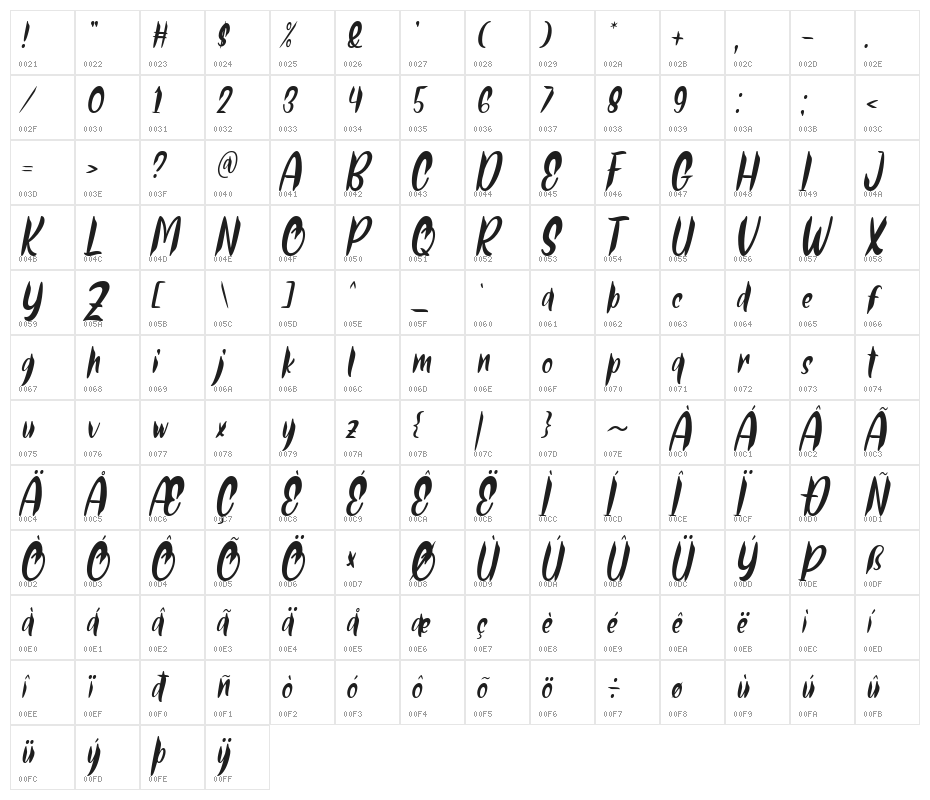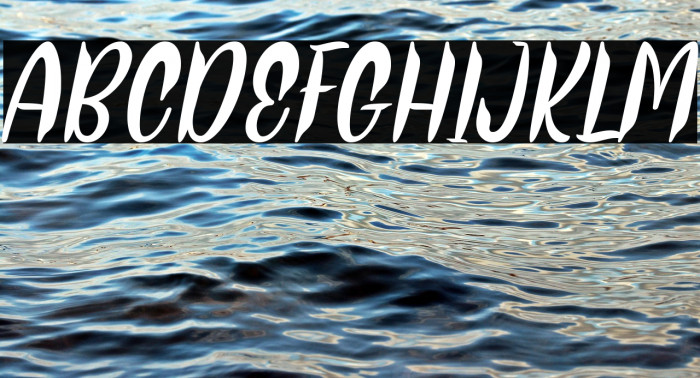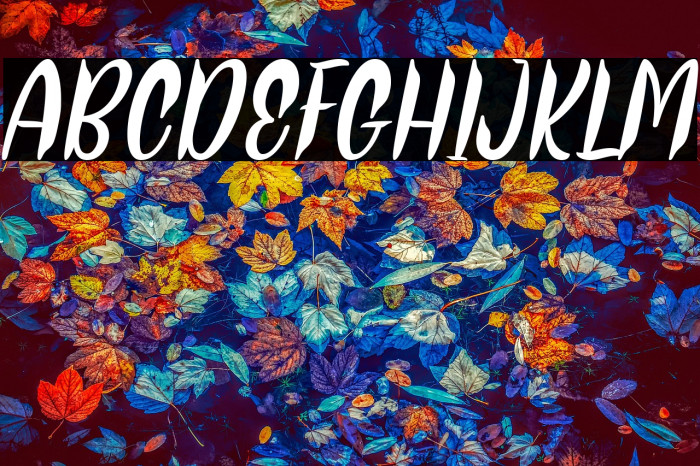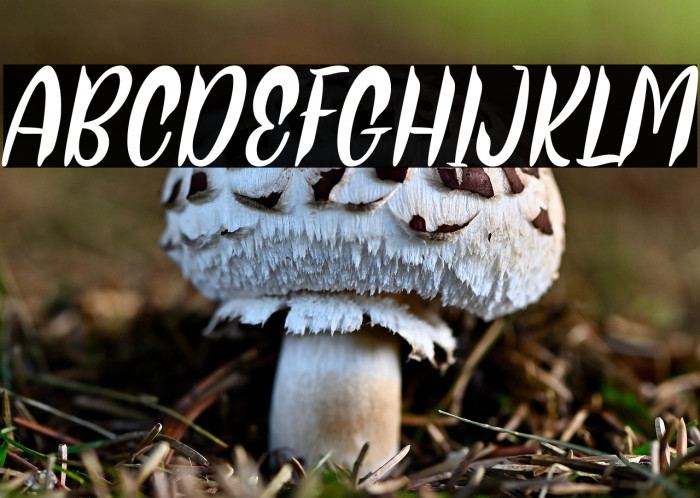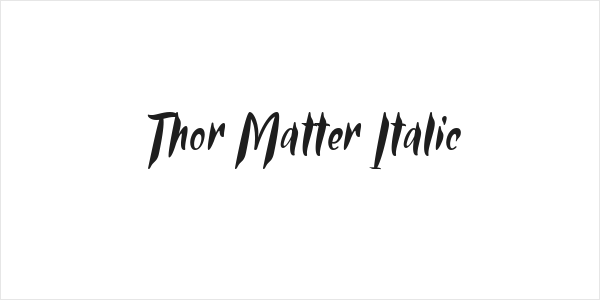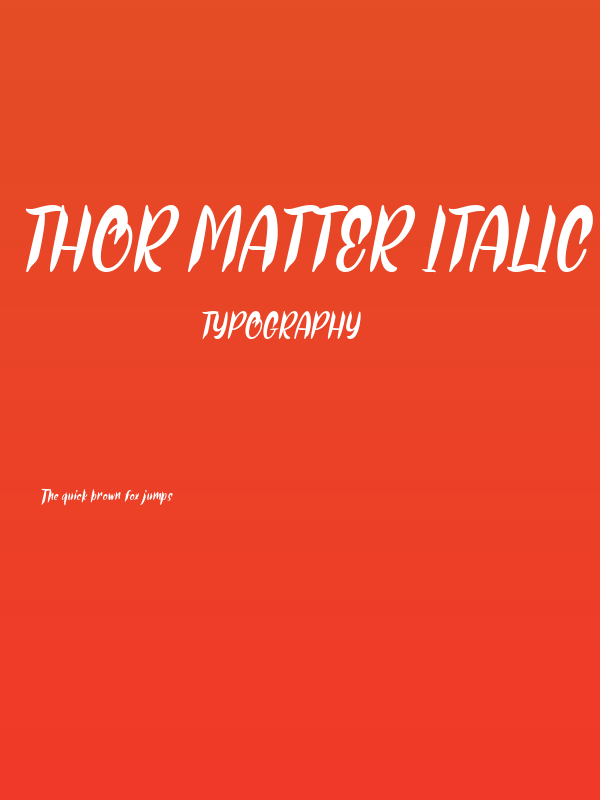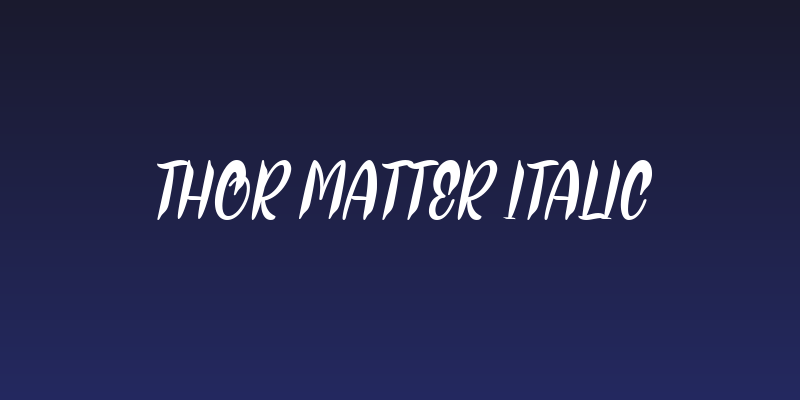
Thor Matter Italic Font
Thor Matter Italic Description
This font exhibits a bold and dynamic style with a strong italic slant, giving it a sense of movement and energy. The characters are crafted with a brush-like appearance, featuring thick and thin strokes that create a high contrast. The uppercase letters are tall and commanding, while the lowercase letters maintain a consistent flow, enhancing readability. The numerals are distinct and align well with the overall aesthetic, and the special characters are designed to complement the boldness of the font. This font's unique style makes it suitable for projects that require a touch of flair and creativity.
Proposed ProjectsIdeal for branding, posters, headlines, and creative design projects that require a bold statement.